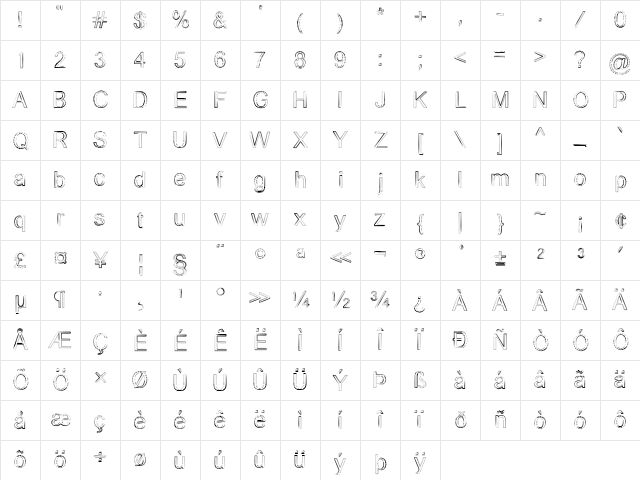
Katatonik Regular
Design Context for Katatonik
Katatonik is a composed and adaptable typeface that performs quietly and consistently across a wide range of design contexts.
Pro Tip: Use Katatonik in both headline and body roles to test its range before committing to a single application.